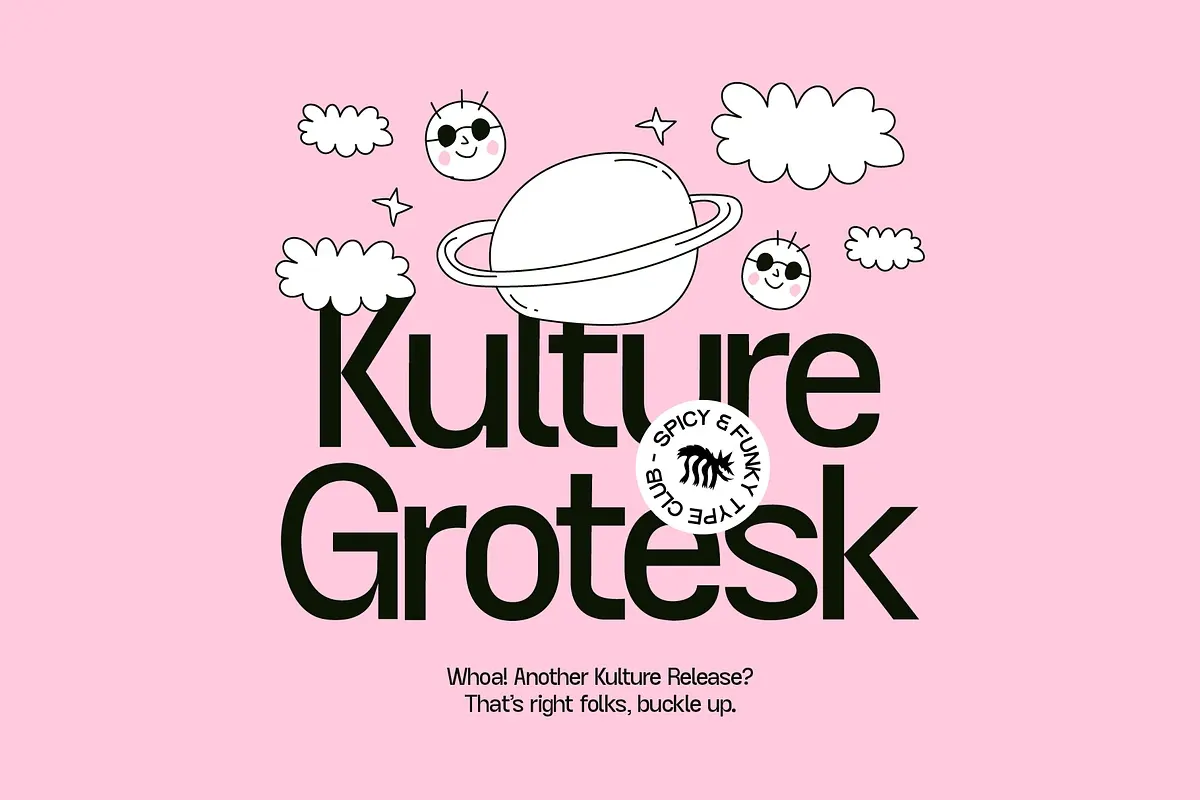
Kulturë - Grotesk Type Font Free Download is a clean and contemporary sans-serif typeface rooted in classic grotesk design. With its neutral tone, geometric precision, and subtle character, Kulturë is perfect for branding, editorial layouts, web design, tech startups, and modern advertising. It delivers both functionality and style, making it a versatile choice for professional design systems.
Balanced spacing, crisp letterforms, and strong legibility make Kulturë ideal for everything from minimalist logos to user interfaces. It adapts beautifully to both bold headlines and subtle body text, giving your designs a modern, cohesive feel.